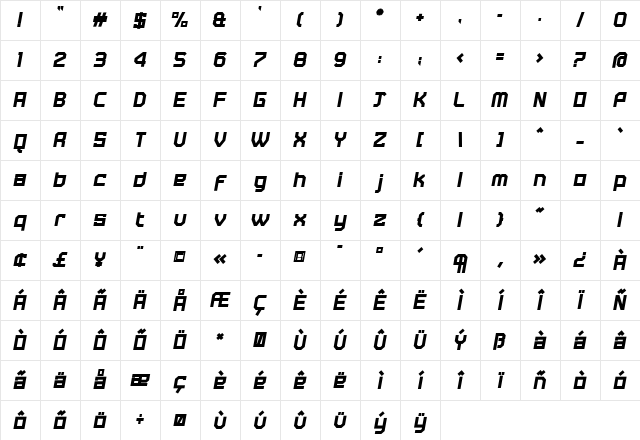
Tremble is a composed and adaptable typeface that performs quietly and consistently across a wide range of design contexts. Its bold stroke weight gives it real presence on the page.